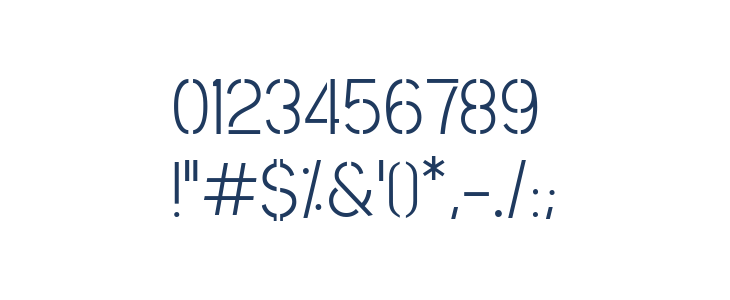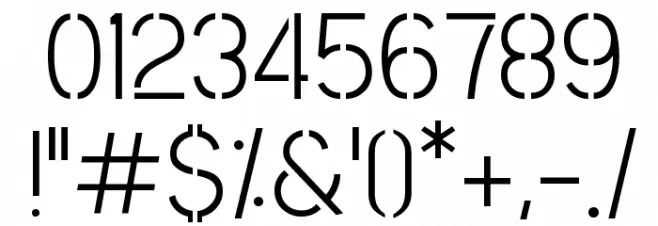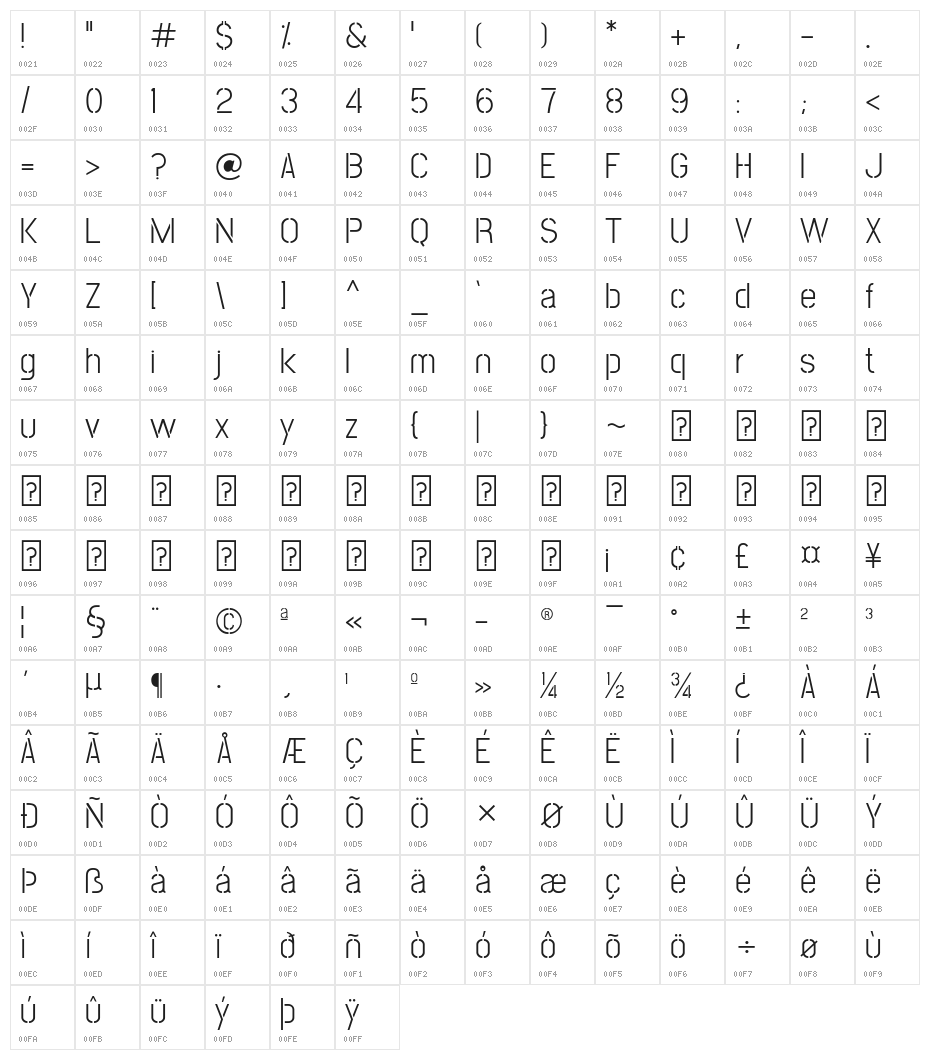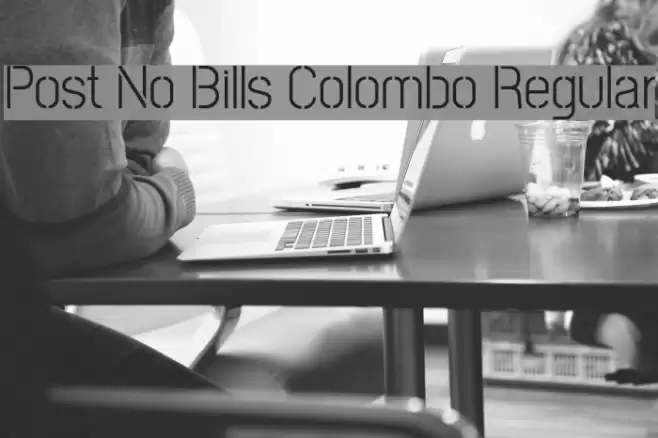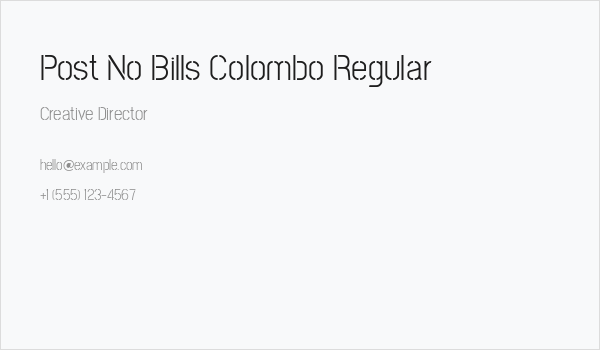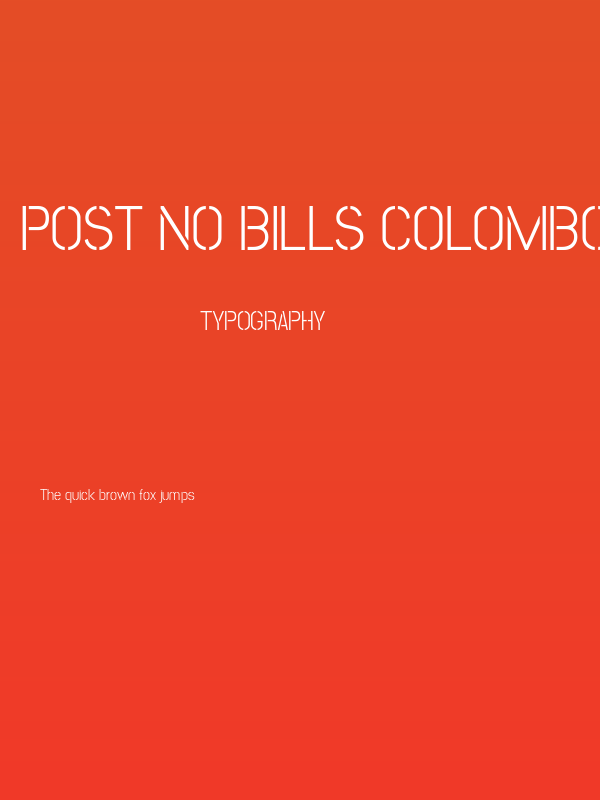
Post No Bills Colombo Regular Font
Post No Bills Colombo Regular Description
This font exhibits a modern and geometric sans-serif style with clean, straight lines and a minimalistic design. The characters are constructed with a consistent stroke width, giving it a uniform appearance. The uppercase and lowercase letters maintain a balanced proportion, while the numerals and special characters are designed to complement the overall aesthetic. The font's simplicity and clarity make it highly legible, suitable for a variety of design applications.
| Proposed Projects | Ideal for branding, signage, editorial design, and digital interfaces where clarity and modernity are essential. |